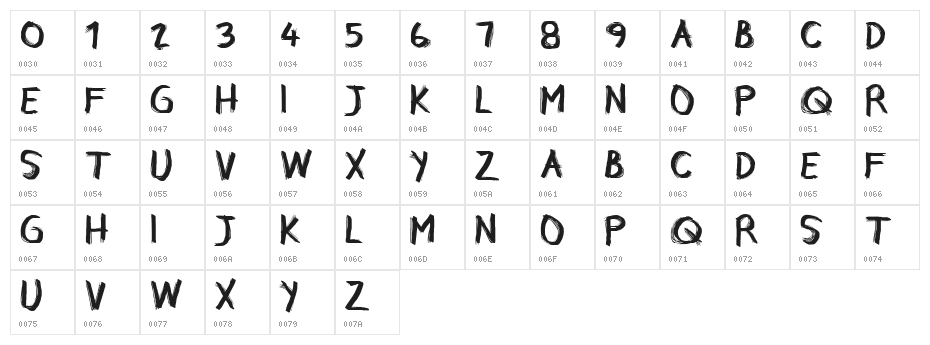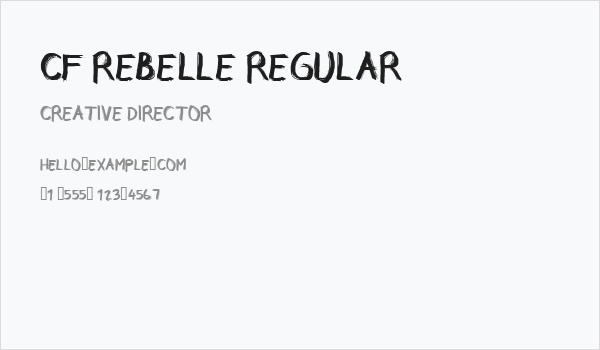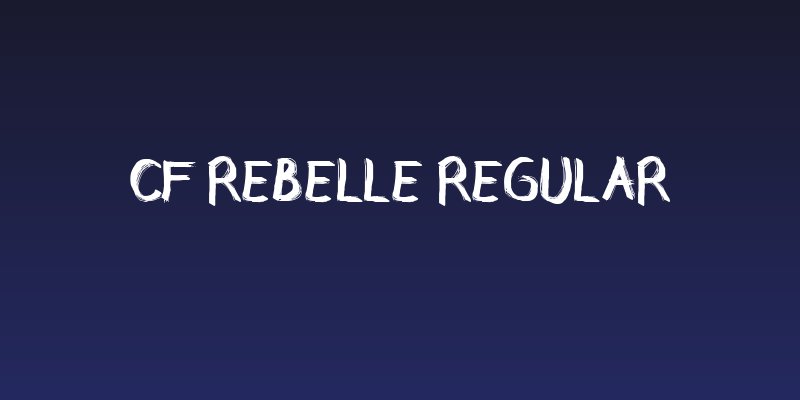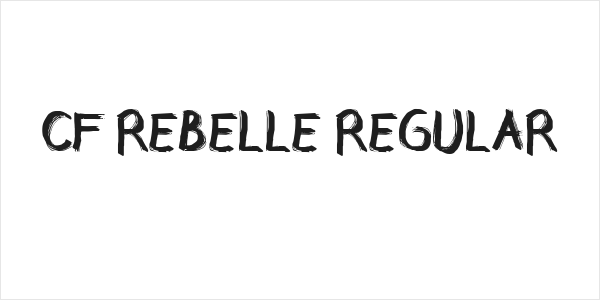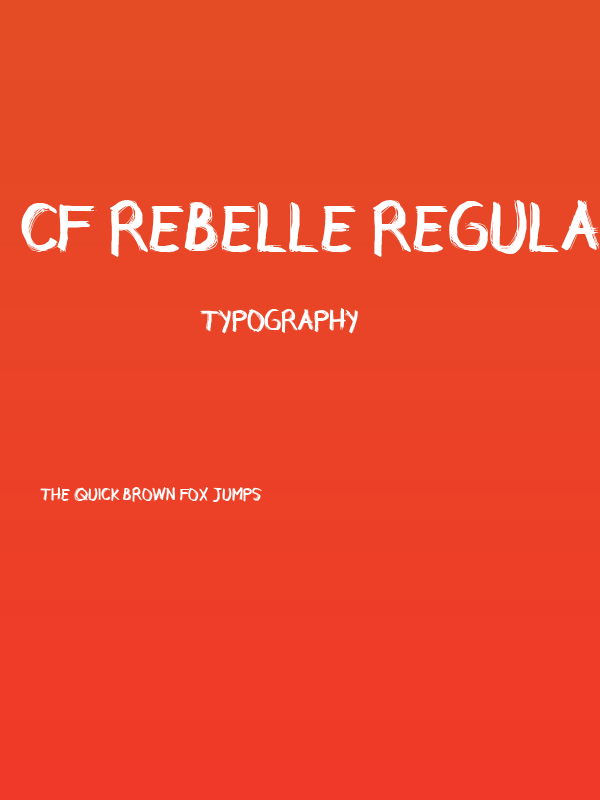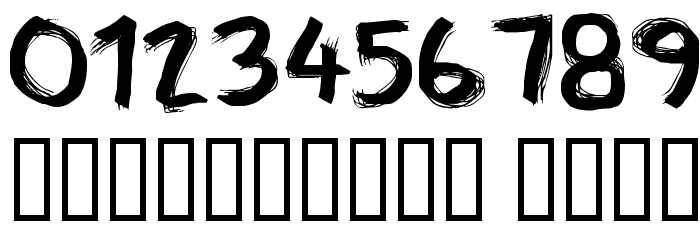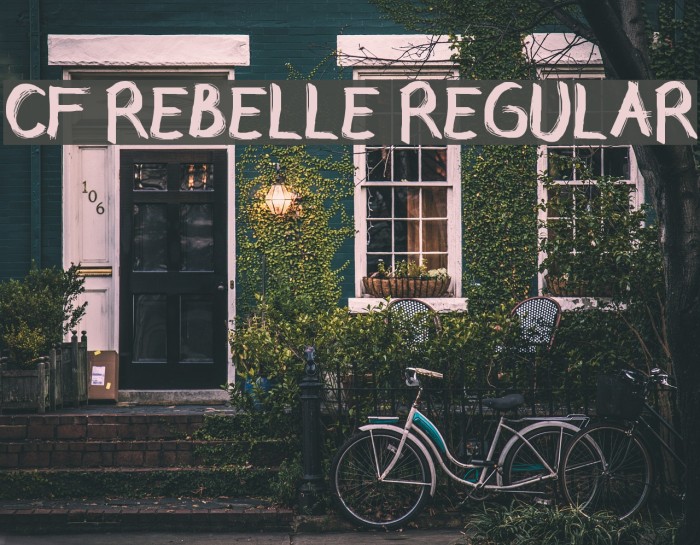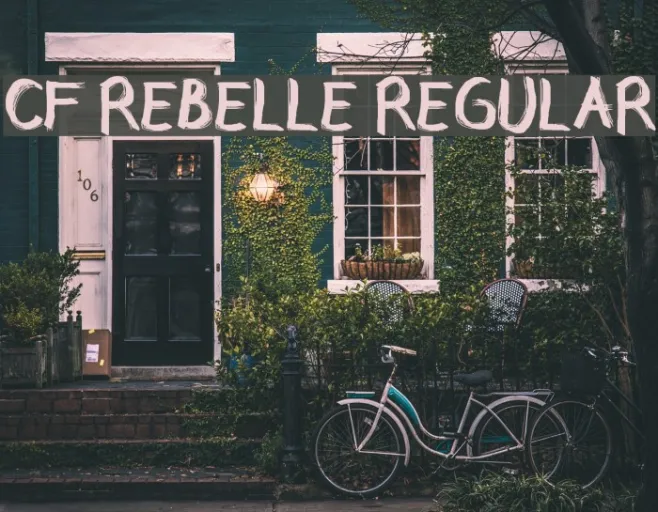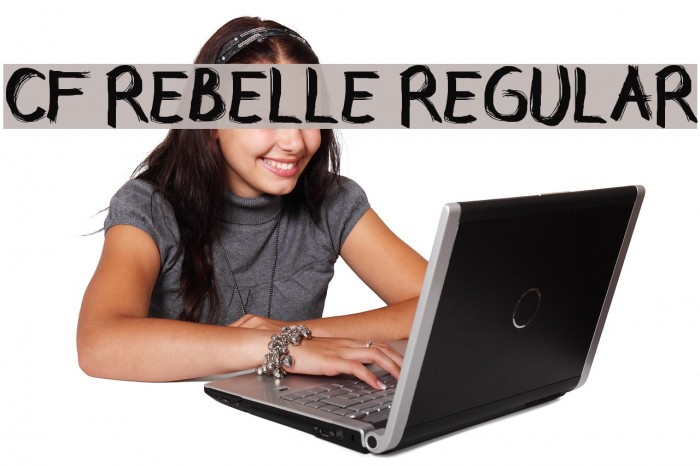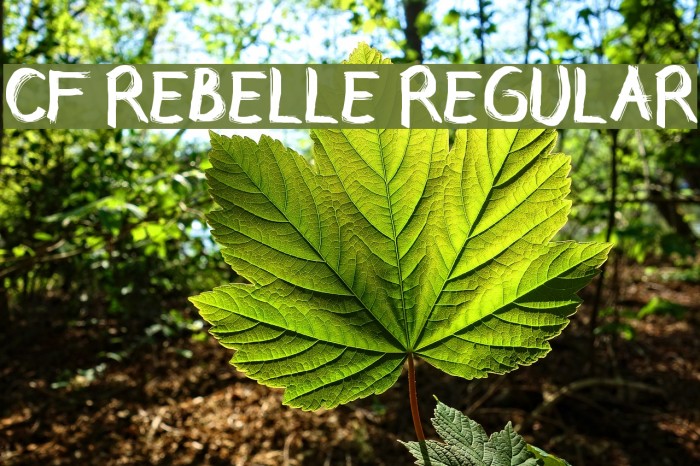
CF Rebelle Regular Font
CF Rebelle Regular Description
This font exhibits a bold and expressive brushstroke style, characterized by its dynamic and energetic appearance. The letters are crafted with a rough, textured edge, giving them a hand-painted look that adds a sense of movement and vitality. The uppercase and lowercase letters maintain a consistent style, with each character displaying unique variations that enhance the overall artistic feel. The numerals and special characters follow the same design principles, ensuring a cohesive visual experience. This font's distinctive style makes it stand out, offering a creative and unconventional aesthetic.
| Proposed Projects | Ideal for creative projects such as posters, album covers, branding, and artistic designs where a bold statement is needed. |